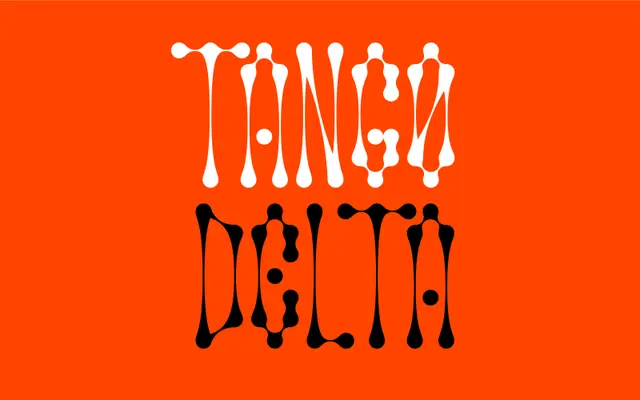
Pivot
A geometric display typeface drawn from the constrained character forms of LCD digital watches, delivered in Regular and Deco variants.
Designed by Australian illustrator Karan Singh, Pivot takes the rigid, circular logic of LCD watch digits and applies it as a strict system for constructing every glyph. The result sits in a retro-futurist register, with both a standard Regular cut and an ornamental Deco variant extending its range into more decorative territory. Coverage spans Latin Extended with 630 glyphs across the two styles.
Pivot is a display typeface built from circular forms and cuts inspired by LCD digital watch digits. Its strict constructivist rules and retro-futurist aesthetic place it firmly in the geometric display category.